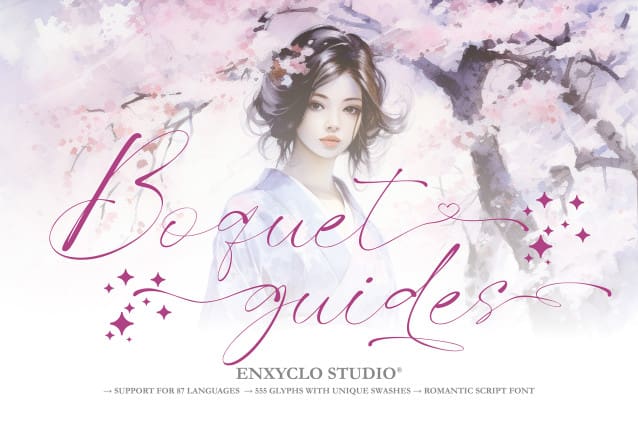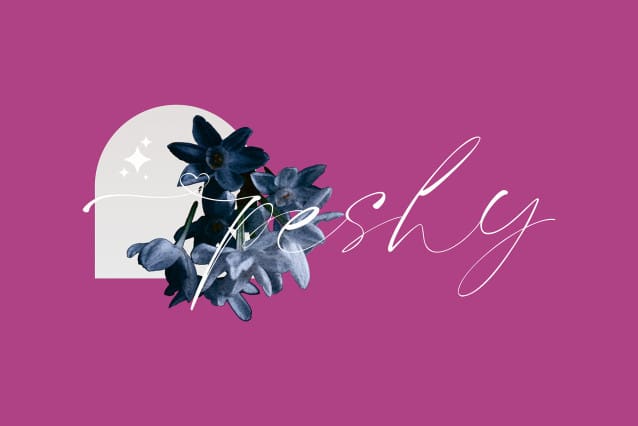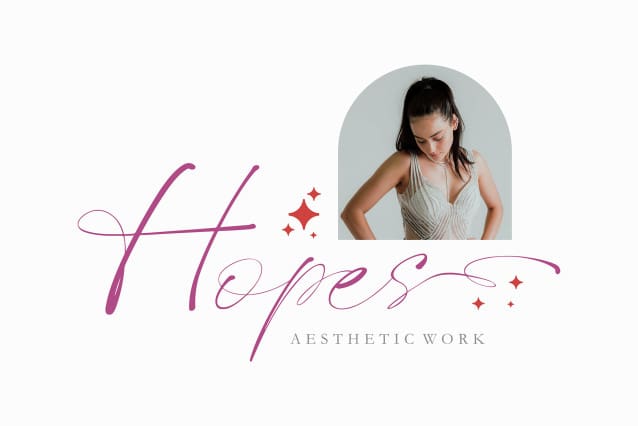
NCL Boquet Guides Font
NCL BOQUET GUIDES FONT is romantic love heart swash script font. It is unique handwritten script font with heart or love swashes. Masterfully designed to become a true favorite, this font has the potential to bring each of your creative ideas to the highest level! It was purposely crafted to be used in large point sizes, although it doesn’t lose its magic in small point sizes. It is perfect for wedding or romantic event, headline, billboard, magazines, website, titles, poster, branding, t-shirt design, and logos. No matter the topic, this font will be an incredible asset to your fonts’ library, as it has the potential to elevate any creation. With this beautiful font, absolutely you can make your project stand out from the rest. See the previews above to get some inspiration on how to use them.